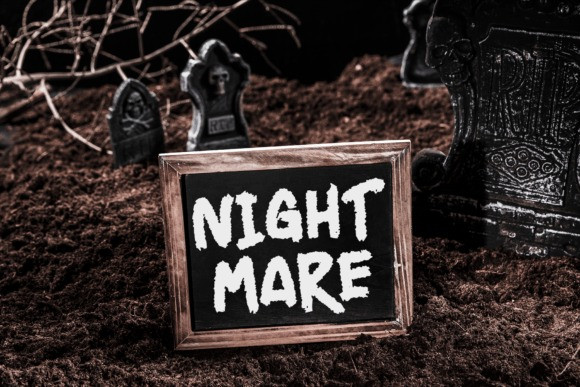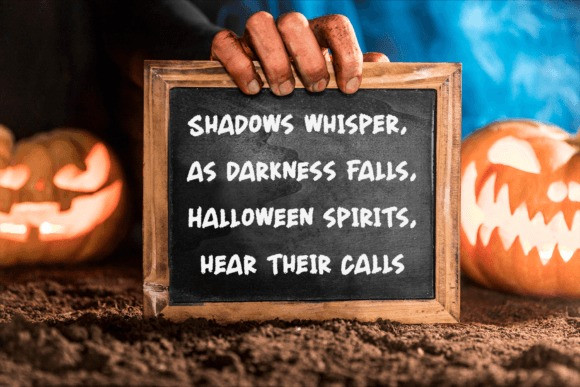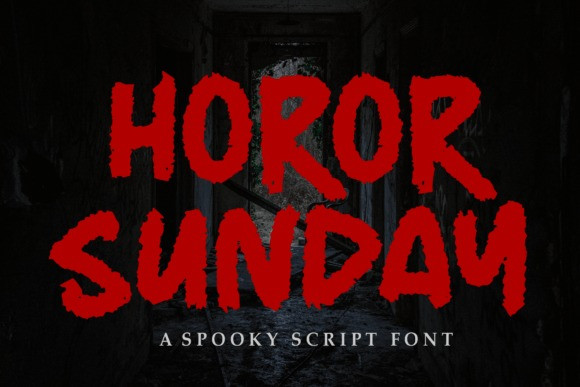
Horor Sunday Font
Horror Sunday Font is an incredibly cool and unique display font. It has a modern yet whimsical style and it will undoubtedly immerse your designs into a magical world.